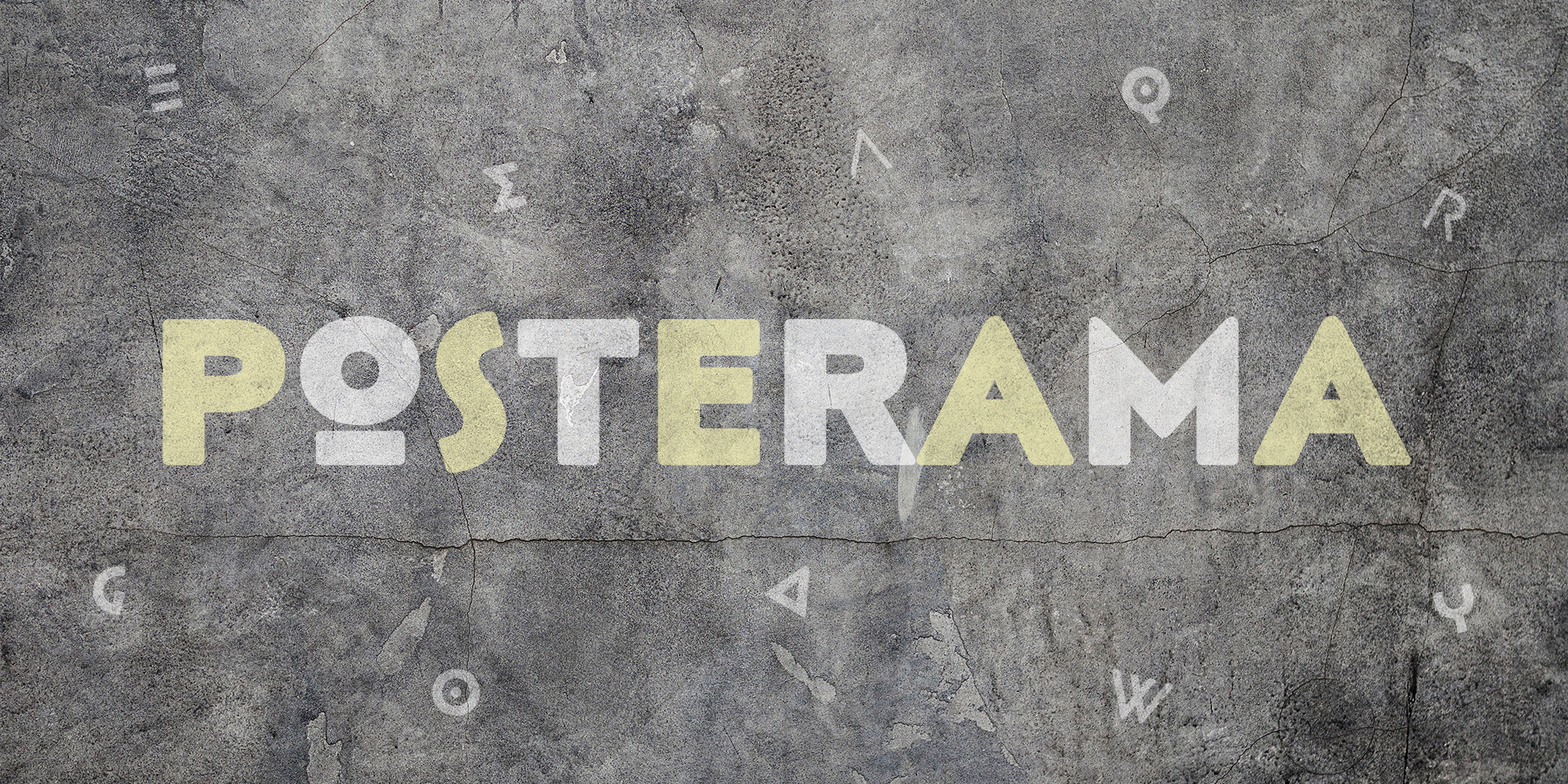
Posterama Font is a bold and dynamic display typeface designed to make headlines, posters, and branding materials truly stand out. Its strong geometric shapes and striking lines deliver maximum impact in any visual communication.
What makes Posterama Font Free Download so exciting is its versatility and power to command attention, making it ideal for advertising campaigns, event posters, and digital media that need to leave a lasting impression.
The Posterama Font family typically includes multiple weights and styles, allowing designers to create varied and compelling typographic hierarchies.
Whether you're crafting bold headlines, striking logos, or vibrant social media graphics, Posterama Font Free Download provides the perfect combination of style and readability to elevate your projects.